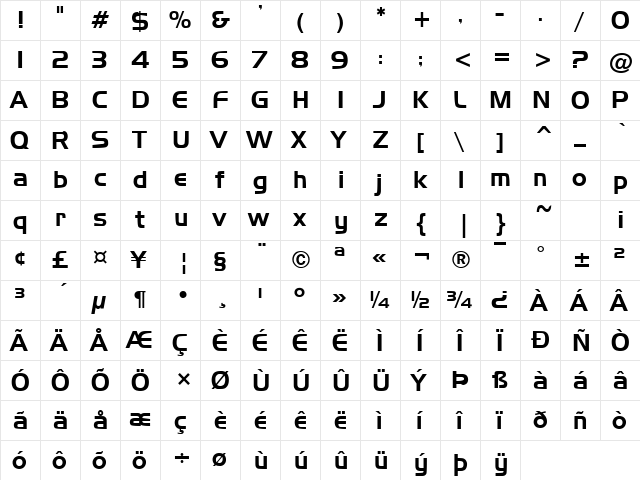
Newtown Regular
Design Context for Newtown Typeface
Newtown offers clean, dependable letterforms without strong stylistic allegiance, making it a practical choice for designers who need flexibility.